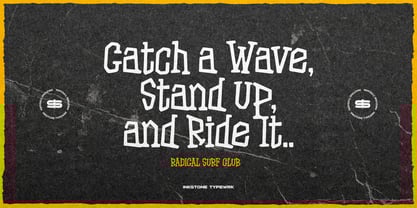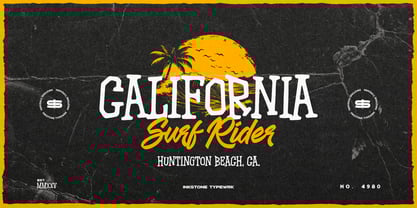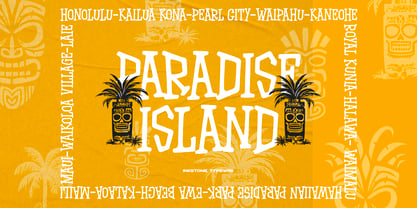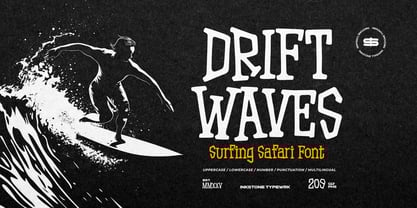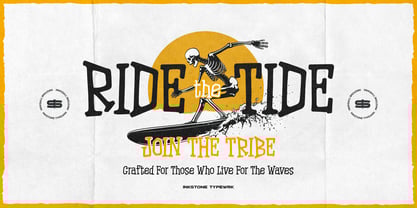
Drift Waves
by Inkstone Typewrk
The Drift Waves Font Family was designed by Andhika Pradana, Yono Asmadiputra and published by Inkstone Typewrk. Drift Waves contains 1 styles. More about this family
Drift Waves - Surfing Safari Font
Catch the perfect wave of typography with Drift Waves, a hand-drawn, organic font inspired by surf culture, beach lifestyle, and tropical dreams. Infused with the exotic spirit of Hawaii, this typeface flows like ocean swells—bold, free, and effortlessly cool.
With its raw, handcrafted strokes and laid-back island vibes, Drift Waves is perfect for vintage surf posters, summer festival merch, and adventure-ready layouts. Whether you’re designing for beach clubs, surf shops, or tropical getaways, this font delivers authentic summer energy with a touch of island mystique.
Designers: Andhika Pradana, Yono Asmadiputra
Foundry: Inkstone Typewrk